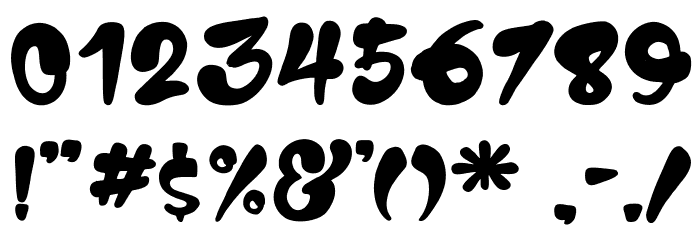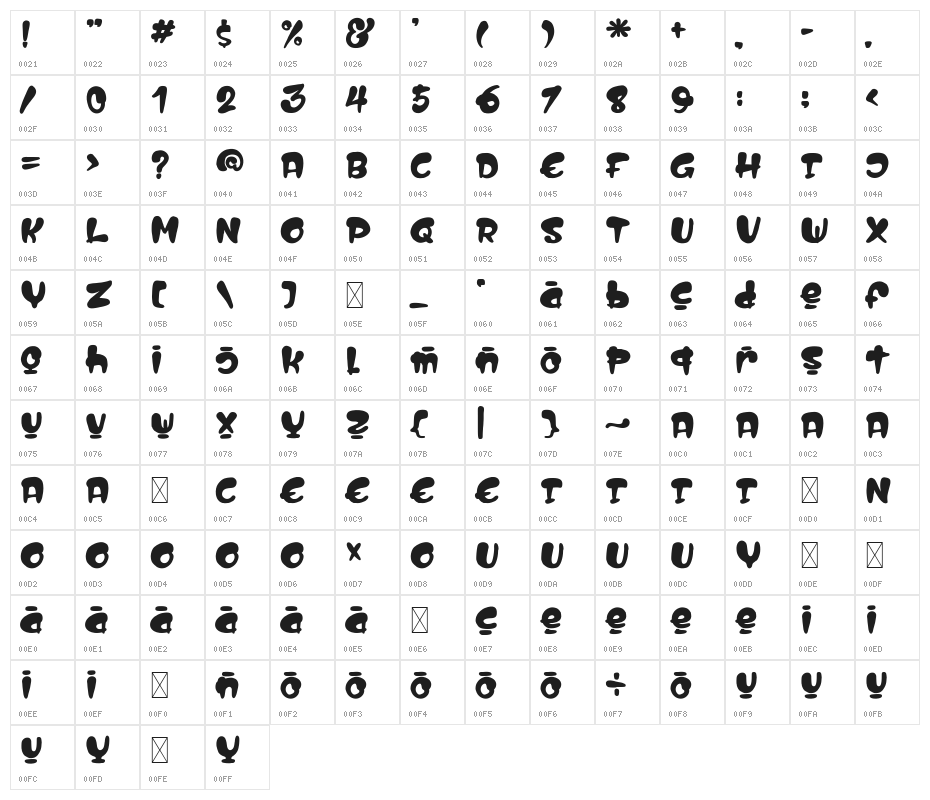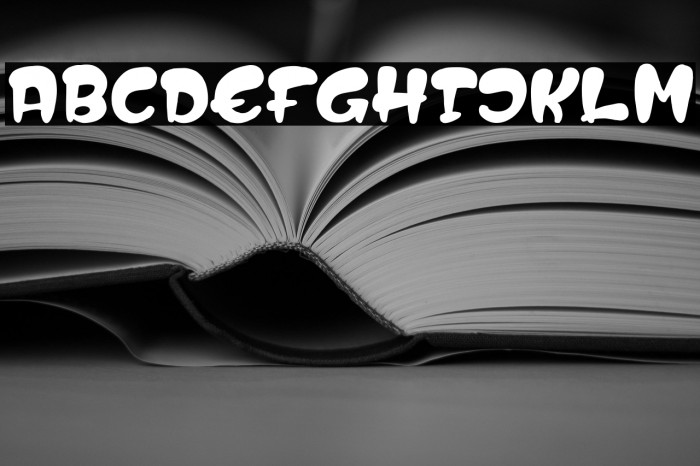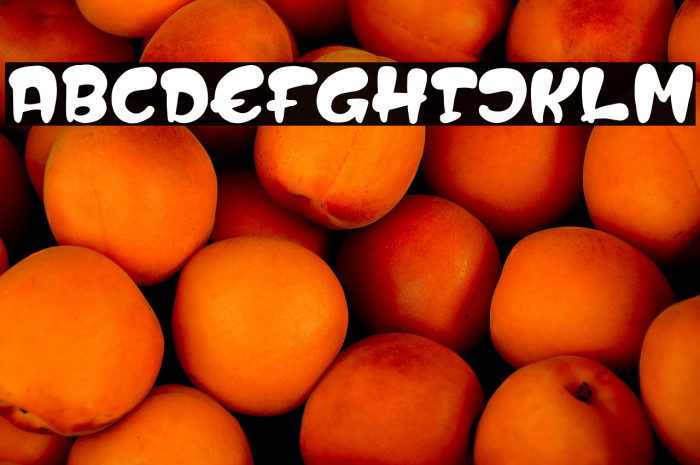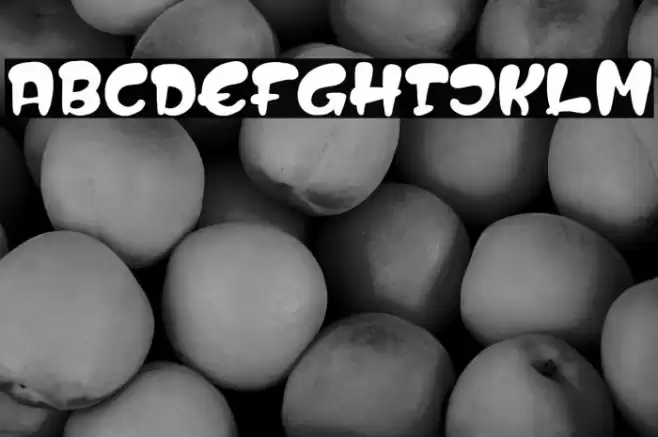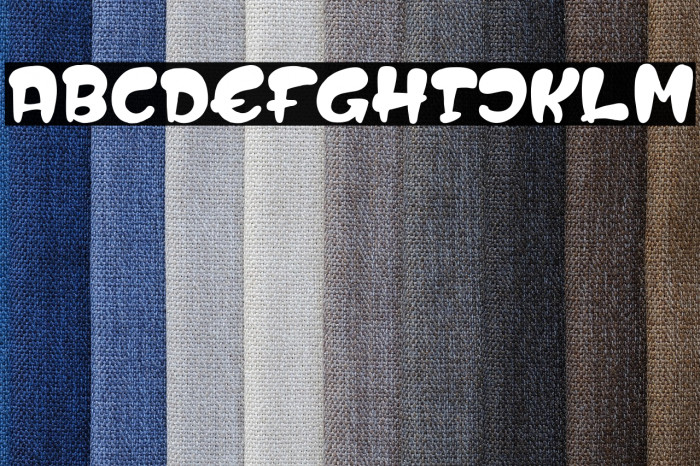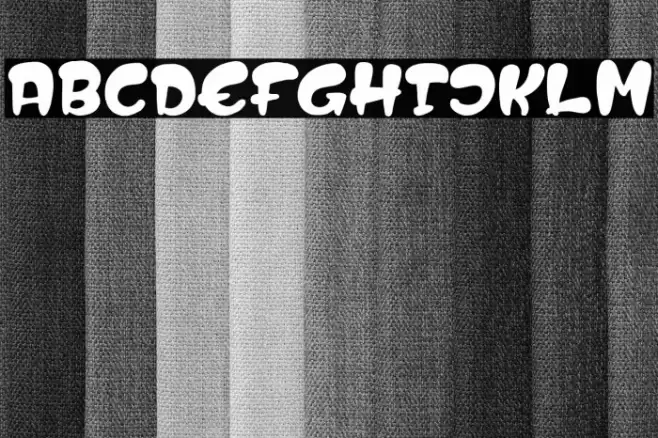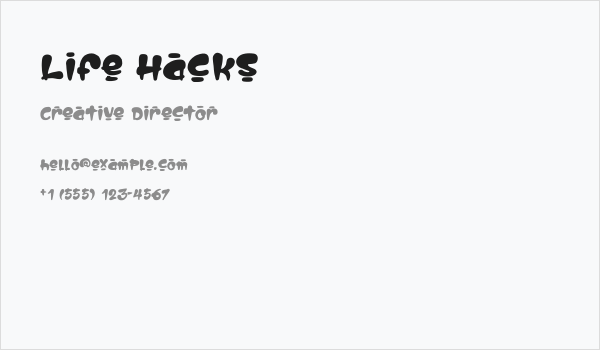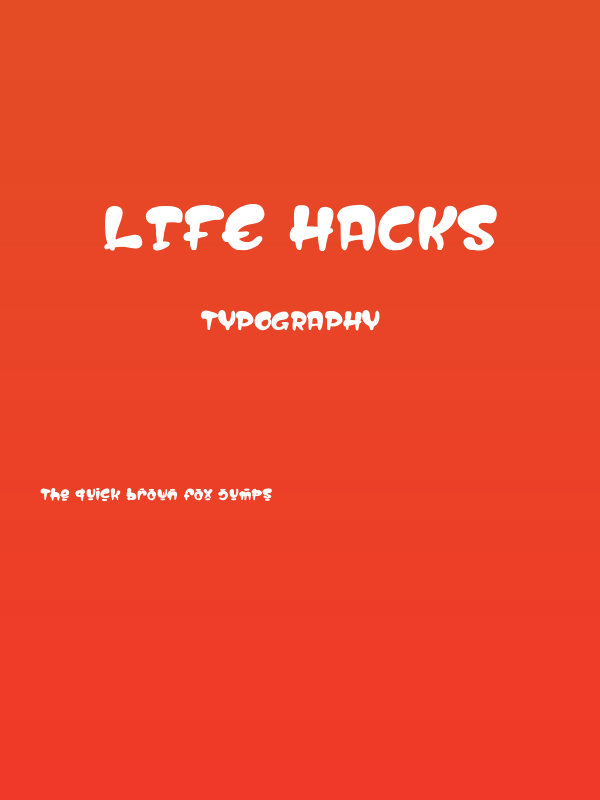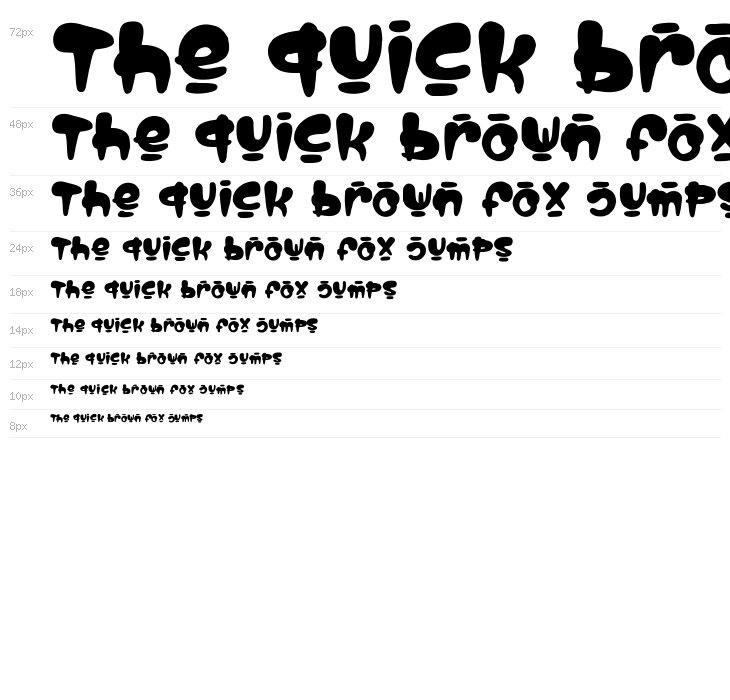
Life Hacks Font
| Estilo geral | Playful |
| Projetos propostos | Ideal for children's books, playful branding, party invitations, and creative posters. |